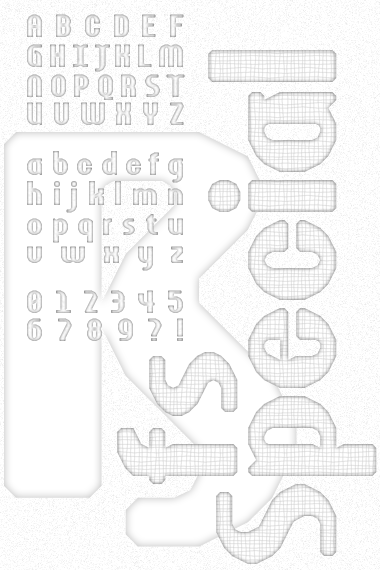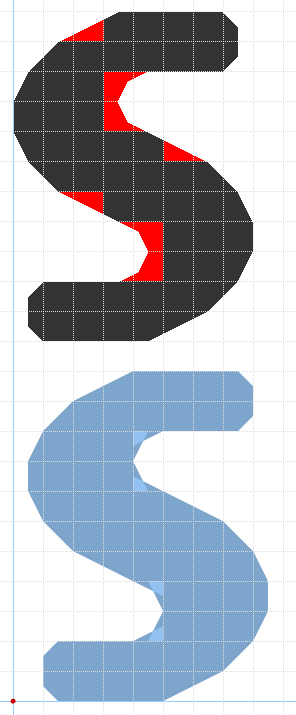
Oh momma, what a beauty! Particularly the outstanding ß, featured faintly in your sample. :)
All the truncated corners, trapping, and the little notches (a, g, w! I, J, T!!) delight me, especially how quite effective they are at pixel size. The pixel display is strong throughout.
Your fluid s, lovely as it is, looks to me slightly too bold and the z too wide. Decent tradeoffs for such fantastic forms, though it may be worthwhile investigating a narrower z.
Very good...I love the lowercase especially.
absolutely agreed + best "a" i've seen in a while. great great job
Wow, that was fast! You nailed em, Ata. :) As far as I can tell, and aside from a kerning pair just barely needed here and there, pixel display is now absolutely flawless.
I am waiting for the day someone publishes a website entirely set in fontstructions...that day gets closer every time a gem like this is released.
Wow! This is a serious piece of composition. Beatiful rounded shapes with balance and harmony. I could only repeat will.i.ૐ, he said it all. Check the é for a missing brick. 10/10
@will.i.om: Appreciate the appreciation. Your kind scrutiny is always a notch above my own and your suggestions always help to make things better. Technically the initial z was the same width as the rest of the characters. I made the E F and L narrower to optically match the rest and I should have done the same for z from the start. I think the problem was I was more focused on maintaining the z diagonal roughly the same angle as the s which caused it to appear wider than the rest. The s is a different story. I must have made seven or eight different s versions before settling on the initial public version. There are two problems with the s that I can't overcome. 1. The x-height, which forces a particular placement of the bricks for it to be rotation-ally symmetric. That makes the s appear either half a brick too thick or half a brick too thin. The current s is the half-a-brick too thin version. 2. The inside curves are achieved using fs2.0 brick stacks. The way I could get them working with the already established curves in the fs was to move the whole glyph half a brick over. While that is fine for sharing purposes, the anal-retentive perfectionist in me finds that mentally annoying. I tried additional brick stacks to move it back half-the-brick, but custom brick refused to be split into two brick combo. I'm attaching an image to clarify what I mean. The s in black is where I want the s to sit and the bricks in red are the ones I can't seem to achieve. Maybe you or someone else can help solve that brick stack mystery. As for the kerning, well...
@kix: Thanks. I like the a too. The w turned nice too. x is the weakest glyph, methinks.
Hi Ata. I missed your detailed reply on fs Special until now, happening again upon this delicious fontstruction while browsing meek’s favorites.
Somehow the half-brick too thin spine on your currently shared s is a closer optical match than the half-brick too thick version. I am interested to know why this is. Thanks again for sharing it and re-inspiring my investigation of the matter.
I am impressed all over again by how fs 2.[1] allows for such relatively fine adjustments to ‘curves’ and counters formed by complex arrays of polygonal bricks. I also understand quite well how this works. So, my surprise must be relative to just how highly tedious, prior to [stackable] composites, grid-doubling an entire fontstruction used to be as the only way around such tight corners. [Stackable] composites are great as they allow local grid-doubling. So often, it is just one or two exotic characters that might particularly benefit from the increased resolution.
fs 2.[1] proves a versatile solution even in the half-brick shift conundrum posted above. Meaning, this shift is currently possible.
Now, for that x...